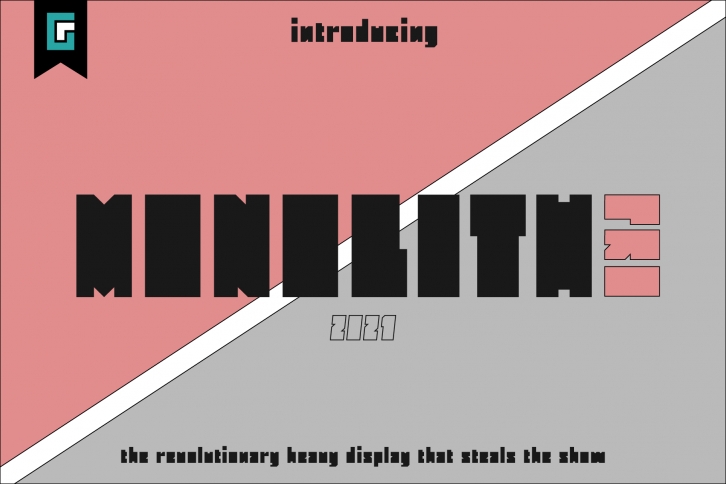
Monolith Pro is a cool, bold and thick lettered display font. This font is ideal for writing web designs, business cards, or pretty much anything else that requires a unique touch.